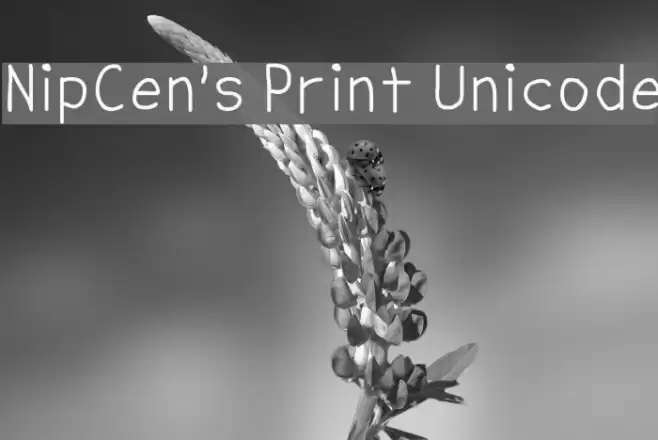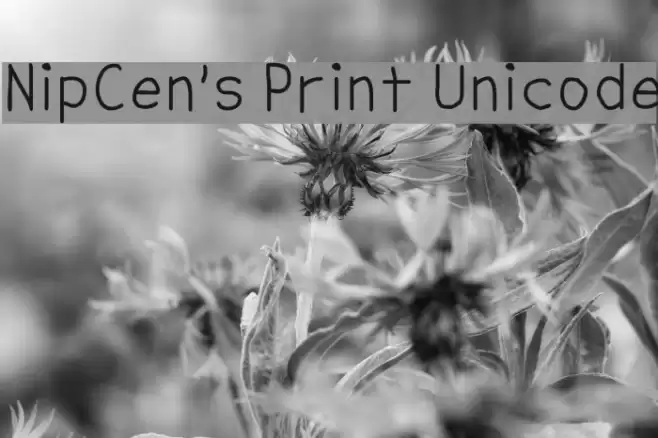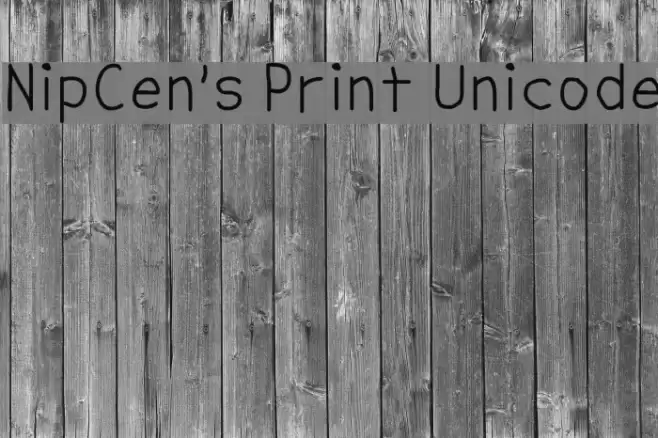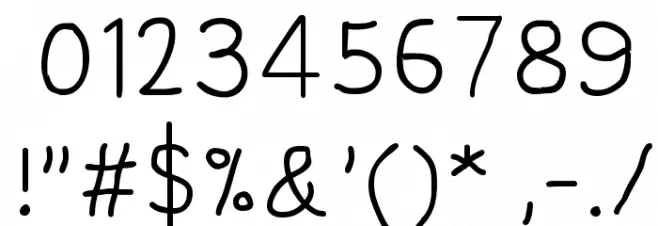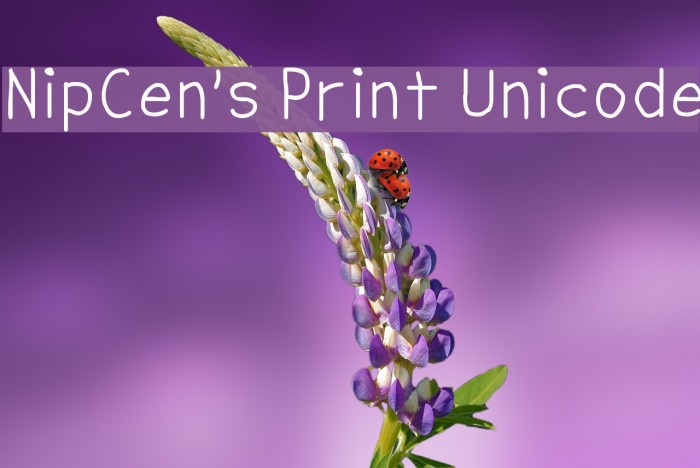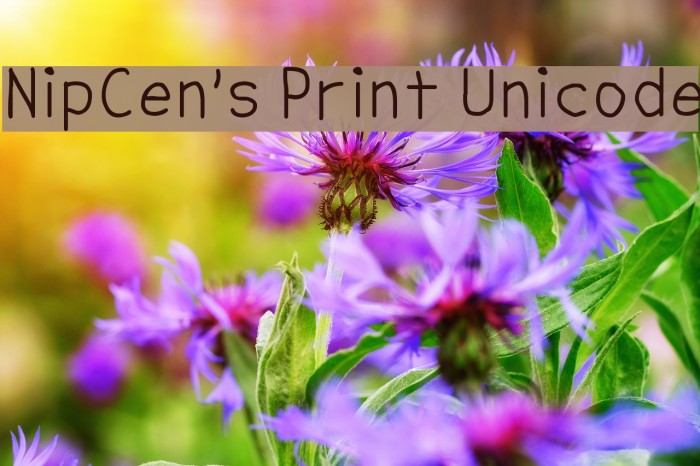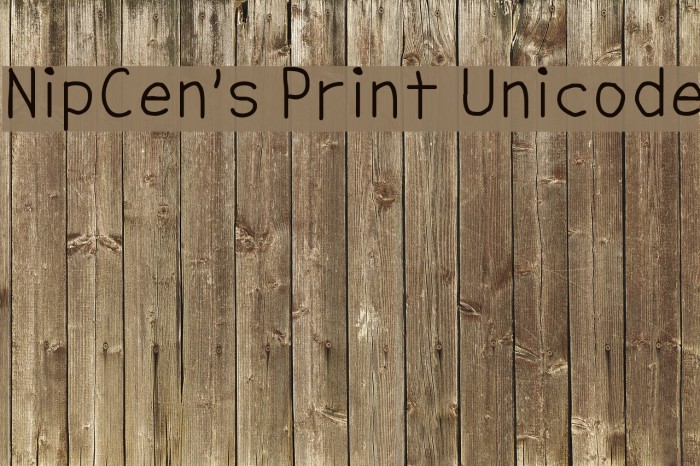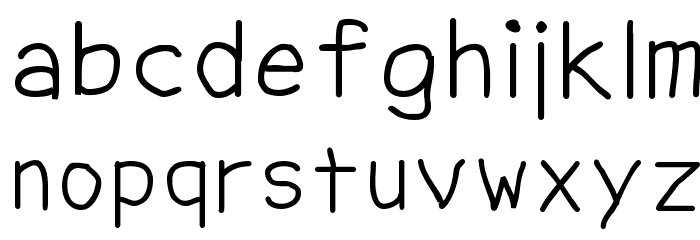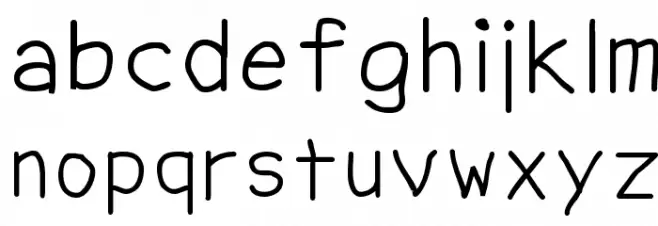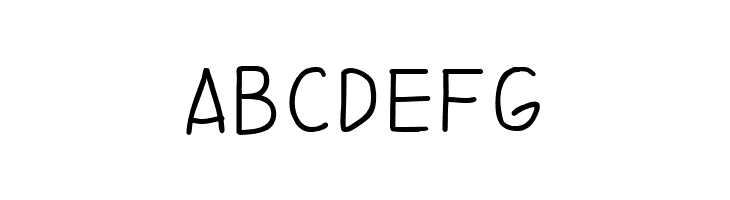
NipCen's Print Unicode Font
NipCen's Print Unicode Description
This font features a playful and casual handwritten style, characterized by its rounded edges and slightly irregular letterforms. The uppercase letters maintain a consistent height, while the lowercase letters exhibit a friendly and approachable appearance. The numerals are clear and easy to read, complementing the overall informal aesthetic. Special characters are well-integrated, maintaining the same whimsical feel. This font's simplicity and charm make it suitable for a variety of creative projects.
A playful, casual handwritten font with rounded edges and irregular letterforms from Uncategorized fonts.
- Proposed Projects: Ideal for children's books, greeting cards, casual invitations, and playful branding.
- Overall Style: Casual
- Use Case: Headlines, Informal text, Creative projects